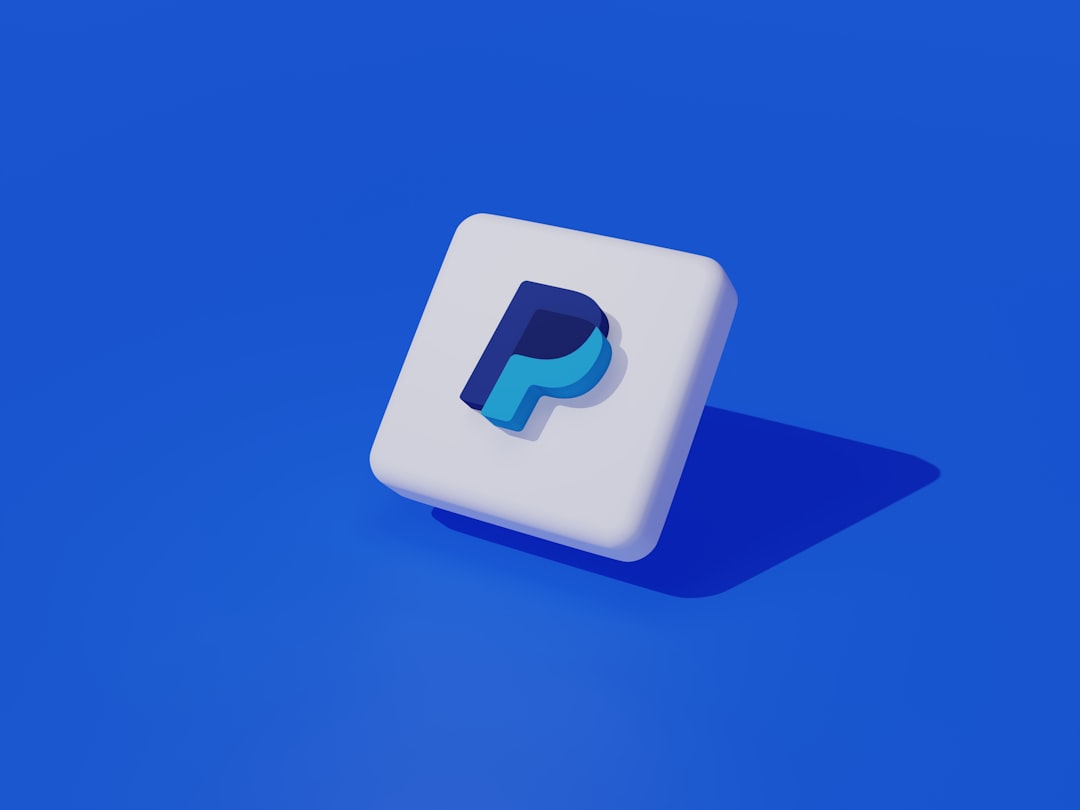
What Font Does PayPal Use? (2026)
What Font Does PayPal Use?
Quick answerThe PayPal font is PayPal Sans, a custom geometric sans-serif designed by Monotype with heritage in FF Mark, used across the wordmark and product UI. The “PayPal” wordmark is a bespoke, slightly italic-leaning treatment in bold. PayPal Sans is proprietary and not downloadable; for a similar clean, trustworthy look, use free alternatives like Inter or Poppins.
The PayPal font is one of the cleaner answers in fintech branding: PayPal commissioned a custom typeface, PayPal Sans, from Monotype to unify its wordmark, app, and marketing in a single, ownable voice. The lettering descends from the geometric heritage of FF Mark, giving it a modern, trustworthy feel. Below we break down the logo, the UI, and the free alternatives. For more breakdowns like this, see our hub on famous brand fonts.
What font is the PayPal logo?
The “PayPal” wordmark is set in a bespoke, bold treatment of PayPal Sans — a geometric sans-serif with a subtle italic lean and the brand’s two-tone blue “PP” / overlapping color treatment. The letterforms are clean and rounded, with even stroke weight and open shapes that read clearly at any size, from a checkout button to a billboard. The double-P monogram (the layered light- and dark-blue “P” mark) is the brand’s icon. As with most major financial brands, the wordmark is a customized, trademarked rendering of the proprietary brand face rather than an off-the-shelf font you can download.
What font does PayPal use in its app and UI?
PayPal uses PayPal Sans across its product — app, website, and checkout flows — as the unifying brand typeface. Designed by Monotype, the family includes optimized variants for different roles (display weights for headlines, “Small” or text-optimized cuts for dense UI), so the same voice carries from a marketing headline down to a transaction line item. For maximum reliability and speed in the interface, PayPal may also fall back to native system fonts where the custom face cannot load, but PayPal Sans is the intended brand font throughout. The result is a consistent, clean, geometric look that signals trust — exactly what a payments brand needs.
Why does PayPal use a custom geometric sans?
For a financial brand, type has to communicate clarity, security, and trust — and a clean geometric sans does exactly that. PayPal Sans, with roots in FF Mark‘s geometric construction, reads as modern, neutral, and dependable, while the bespoke tuning gives PayPal an ownable identity it can use globally without per-platform licensing limits. Commissioning a custom family also lets PayPal optimize for tiny UI text and large display use in one coherent system. For a company operating in dozens of countries and scripts, that single licensed-everywhere face removes a real headache: there are no per-platform font fees, no inconsistent fallbacks between the app, the web checkout, and printed materials, and no risk of a third-party license lapsing across a critical payments flow. The subtle italic lean in the wordmark adds a touch of forward motion and approachability to what could otherwise feel like cold, institutional banking type. Our font licensing guide explains why large brands like PayPal invest in custom faces from foundries like Monotype rather than licensing retail fonts.
Free fonts that look like the PayPal font
You cannot use PayPal Sans or the wordmark, but several free geometric sans-serifs capture the same clean, trustworthy feel. Match the role: a geometric sans for a wordmark or headline look, a humanist sans for readable body and UI.
Use case PayPal uses Free / paid alternative
Logo / wordmark look PayPal Sans (custom) Poppins (free)
UI / body text PayPal Sans Inter (free)
FF Mark-style geometric FF Mark heritage Jost (free)
Closest paid heritage FF Mark (paid)
Poppins is the best free match for the geometric, friendly wordmark feel — clean circular forms that echo PayPal Sans’s character in headlines and logos. Inter is the most reliable free choice for UI and body text, with excellent screen legibility, and Jost offers a Futura-flavored geometric look close to the FF Mark heritage. All are free on Google Fonts for commercial use. For the closest paid heritage match, license FF Mark from Monotype. See our deep dive on the Inter font for UI work.
How to recreate the PayPal look
PayPal’s identity is clean, modern, and built on trust, so the typography should stay geometric and uncluttered. For a PayPal-style wordmark, set a bold weight of Poppins with even spacing and rounded forms, optionally with a slight italic lean to echo the brand mark. For interface and body text, use Inter for its tuned screen legibility across small UI sizes. Anchor the palette with PayPal’s two blues, keep generous whitespace, and let the type read as calm and dependable rather than flashy — exactly the tone a payments product needs. For more brand breakdowns, see our siblings on what font Discord uses and what font Pinterest uses.
What font does PayPal use in its logo?
PayPal uses PayPal Sans, a custom geometric sans-serif designed by Monotype, for its “PayPal” wordmark — a bold, slightly italic-leaning treatment in two-tone blue. The font has heritage in FF Mark. Both the wordmark and PayPal Sans are proprietary, trademarked assets, not downloadable fonts.
What is PayPal Sans?
PayPal Sans is PayPal’s custom brand typeface, commissioned from Monotype, with geometric roots in FF Mark. It spans display and text-optimized cuts so the same voice works from headlines down to small UI labels. It is proprietary to PayPal and not available to license.
Poppins is the closest free match for PayPal’s geometric, friendly wordmark feel, and Inter is best for UI and body text. Jost echoes the FF Mark heritage. All are free on Google Fonts for commercial use; for the closest paid match, license FF Mark from Monotype.
Who designed the PayPal font?
PayPal Sans was designed by Monotype as a custom typeface for PayPal, drawing on the geometric heritage of FF Mark. It was created to give PayPal a single, ownable, trustworthy voice across its wordmark, app, website, and global marketing without per-platform licensing limits.